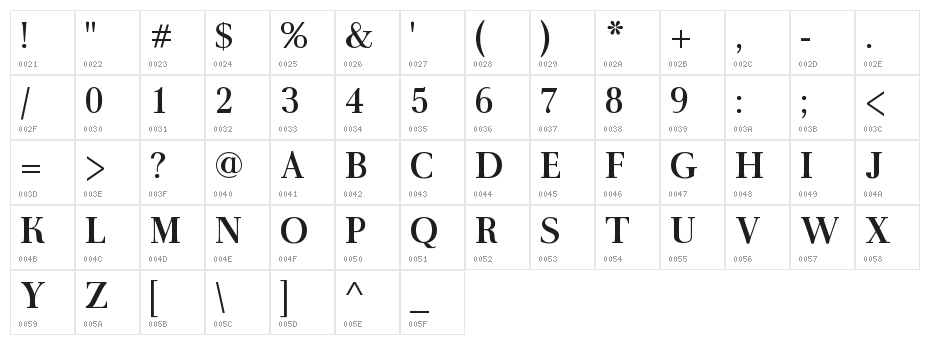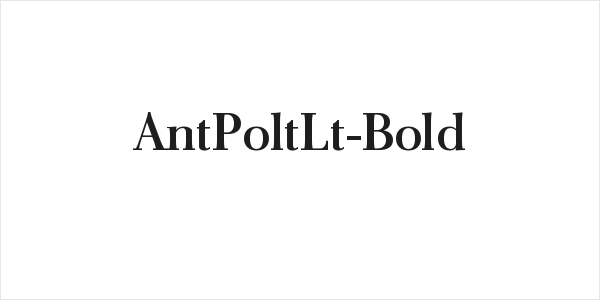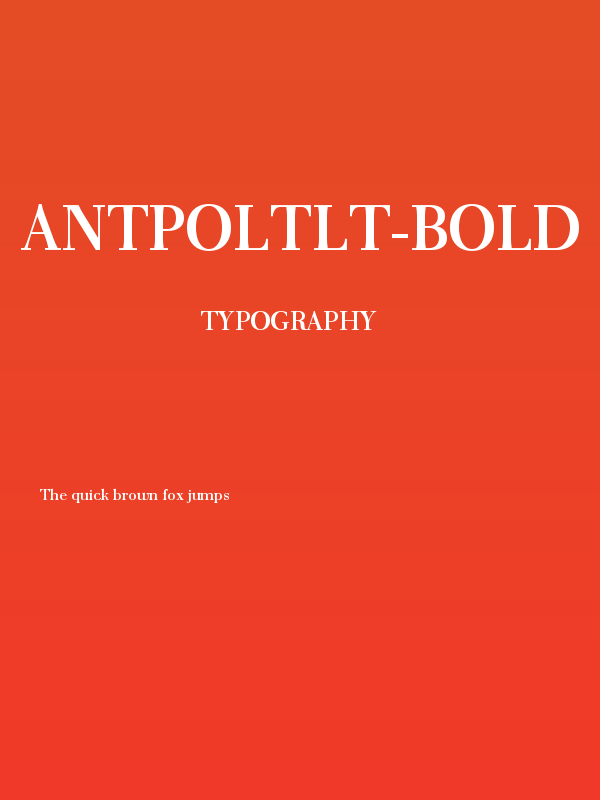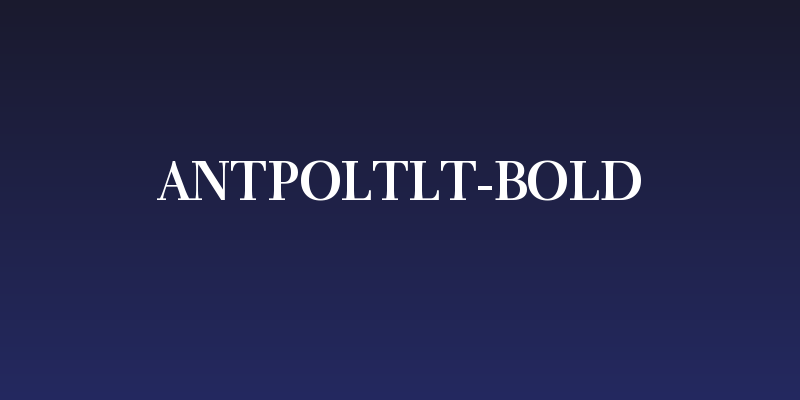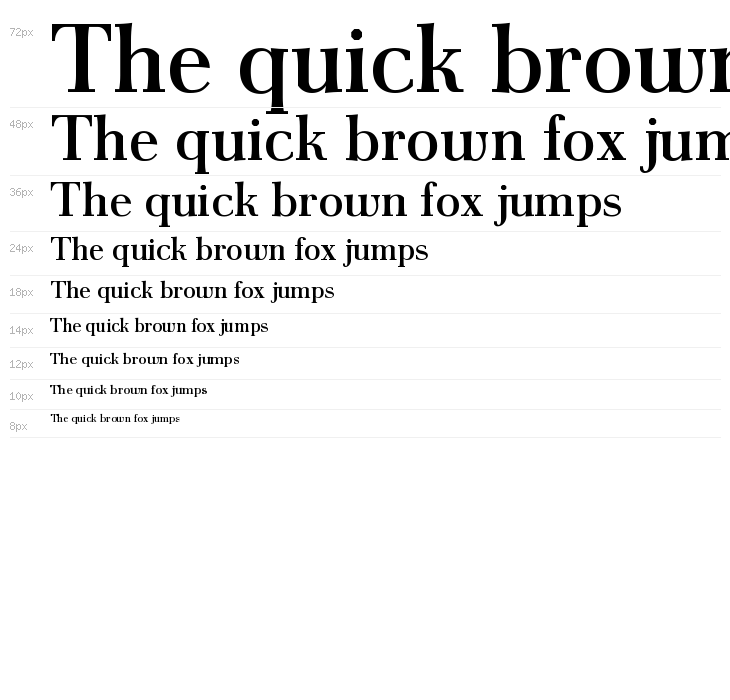
AntPoltLt-Bold Font
AntPoltLt-Bold Description
This font exhibits a classic serif style with bold, prominent strokes that convey a sense of authority and tradition. The uppercase letters are well-defined with sharp serifs, while the lowercase letters maintain a consistent flow with slightly rounded edges. The numerals are clear and distinct, ensuring readability. Special characters are elegantly integrated, maintaining the overall aesthetic. The font's bold weight and high contrast between thick and thin strokes make it suitable for impactful designs.
| Proposed Projects | Ideal for book covers, editorial headlines, formal invitations, and branding materials that require a traditional yet bold appearance. |